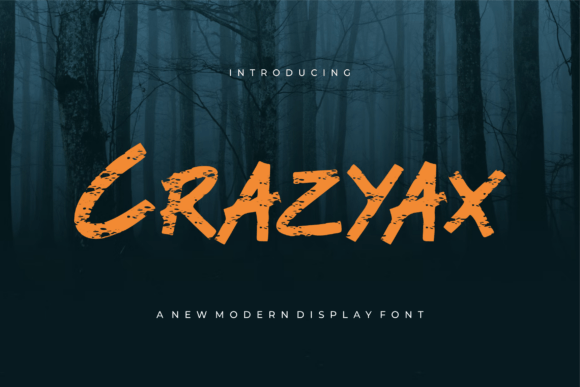
Unlock the Whimsy in Your Designs
Have you ever found yourself staring at a blank page, desperate for the perfect font to bring your creative vision to life? The search can be daunting, but sometimes, it’s the most unexpected discoveries that lead to the most magical results. For designers and creatives, the right font can make all the difference in setting the tone for a project.
Enter the Crazyax Font, a modern script font that’s equal parts whimsical and sophisticated. This font is perfect for designers looking to add a touch of magic to their work, whether it’s a logo, poster, or social media graphic. With its unique style, the Crazyax Font is sure to transport your designs into a world of wonder and enchantment.
Whether you’re a seasoned pro or just starting out, the Crazyax Font is a valuable addition to any designer’s toolkit. Its versatility and playfulness make it an ideal choice for a wide range of projects, from children’s books to fashion brands.
Crazyax Font Key Features
- Unique Characteristics: Crazyax Font features a unique, hand-drawn design with bold lines and playful flourishes, adding a touch of whimsy to any text-based design.
- Font Weight: Crazyax Font is available in two font weights: Regular and Bold, allowing designers to create visual hierarchy and emphasis in their designs.
Crazyax Font Review
I recently had the chance to dive into the Crazyax Font, and I must say, it’s an interesting addition to the world of typography. ✨ Here are some of the things that caught my attention:
- Its unique blend of futuristic and playful elements makes it a great choice for modern and edgy designs.
- The font’s bold and confident feel is perfect for creating a strong visual impact.
- The extensive character set and language support make it a versatile option for a wide range of projects.
- The font’s irregularities can make it difficult to read for longer blocks of text.
- The bold weights may not be suitable for all types of projects, such as academic or professional publications.
- The font’s playfulness may not be suitable for all audiences, such as conservative or traditional clients.
Overall, I think Crazyax Font is a solid choice for designers looking to add a touch of modernity and edginess to their projects. While it may not be suitable for all types of projects, it’s definitely worth considering for those looking to make a statement.
The Crazyax font is ideal for:
1. Creative and artistic projects.
2. Fashion and lifestyle branding.
3. Bold and eye-catching headlines.
4. Add a touch of playfulness to your designs.
Tips for Getting the Most Out of Crazyax
1. Use the font in combination with bold colors to create a striking effect.
2. Experiment with different font sizes and styles to add visual interest.
3. Pair the font with other creative and artistic fonts for a unique look.